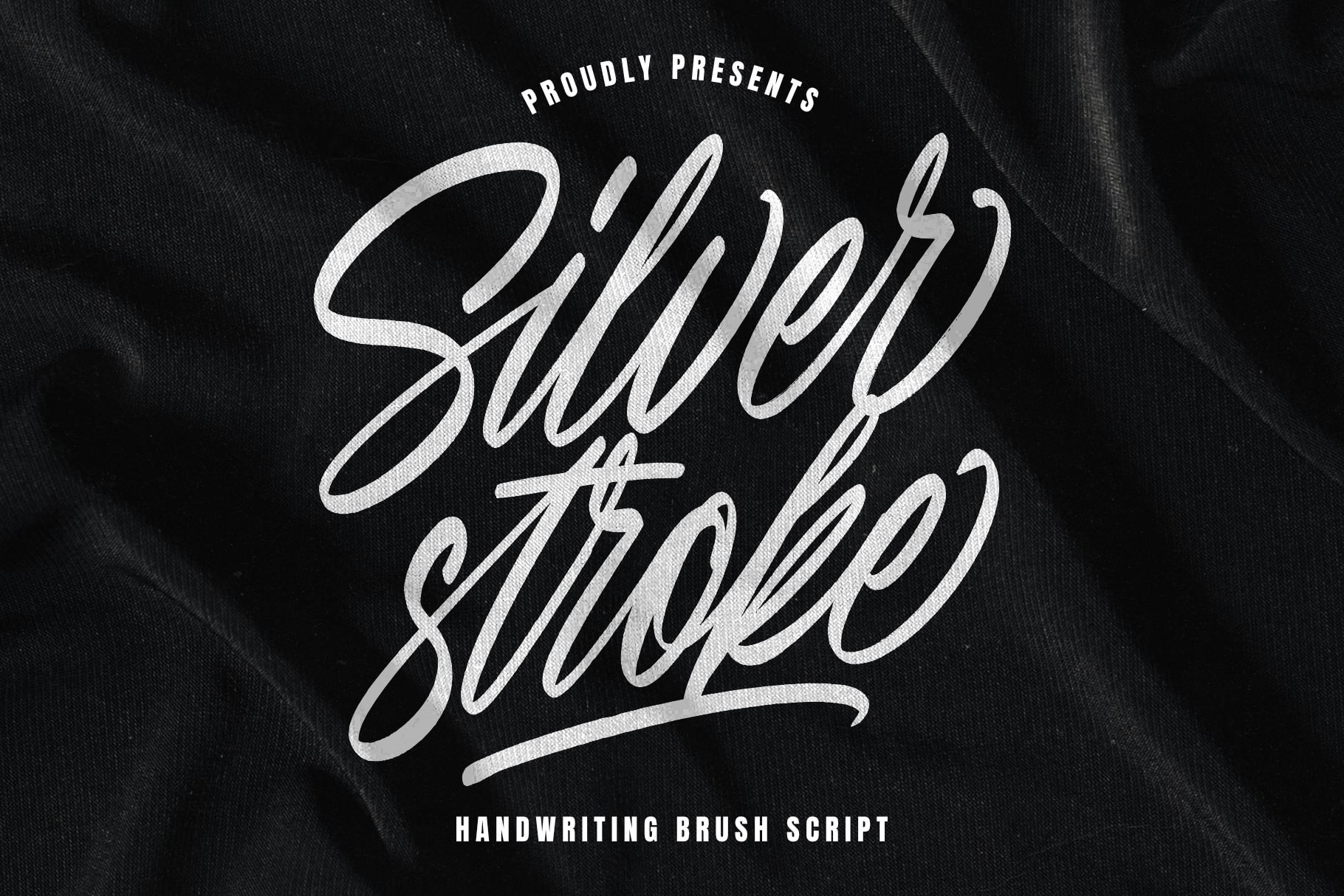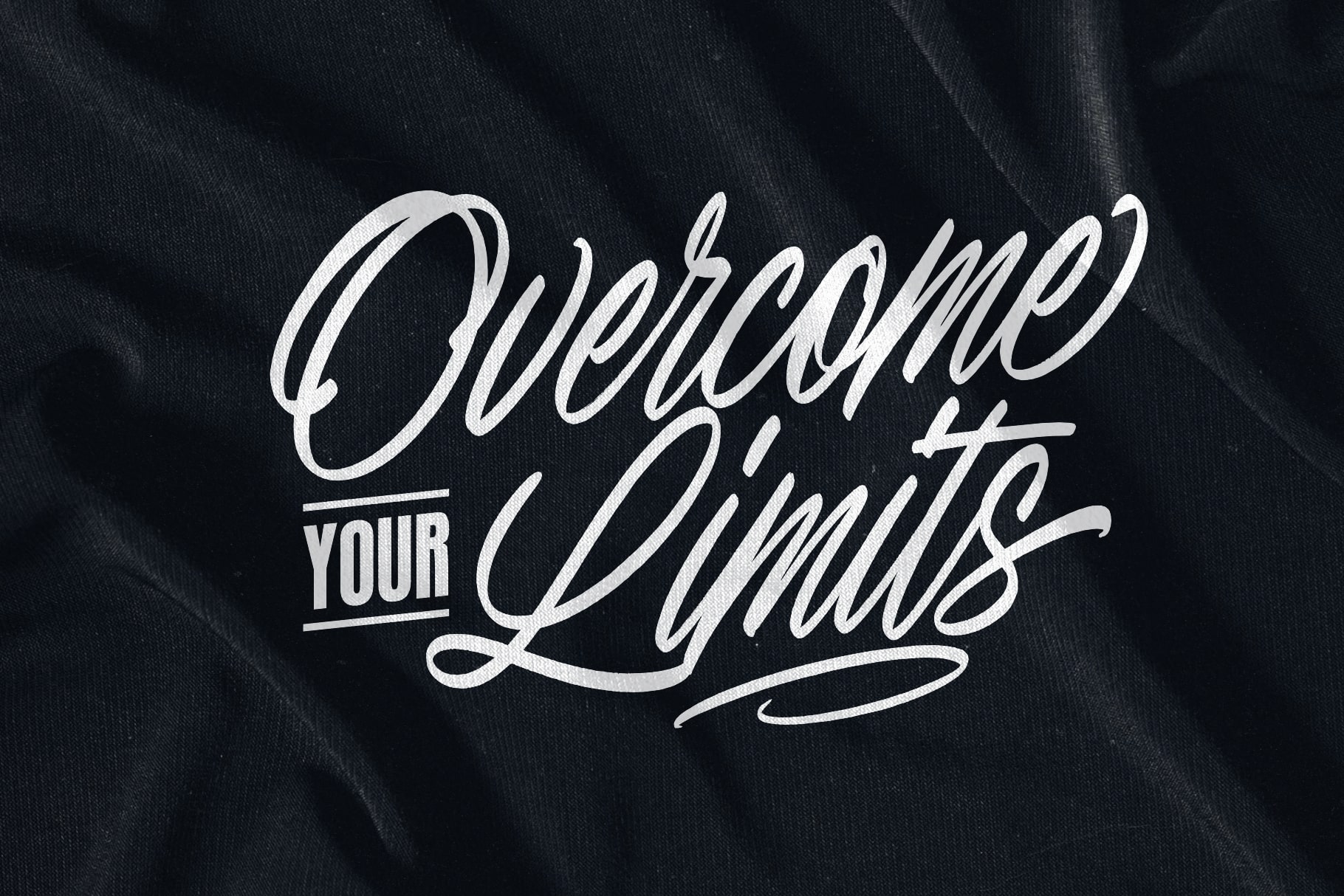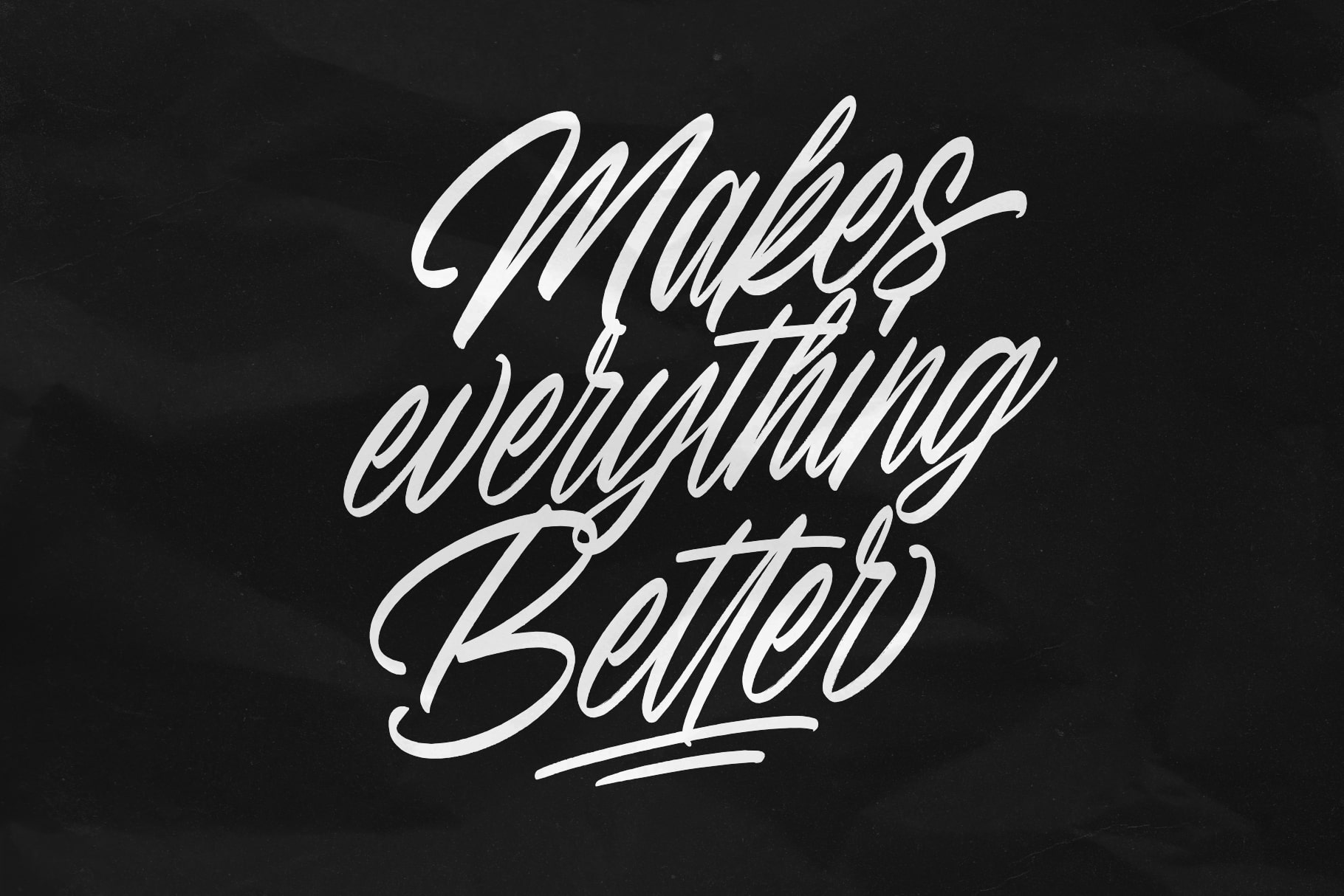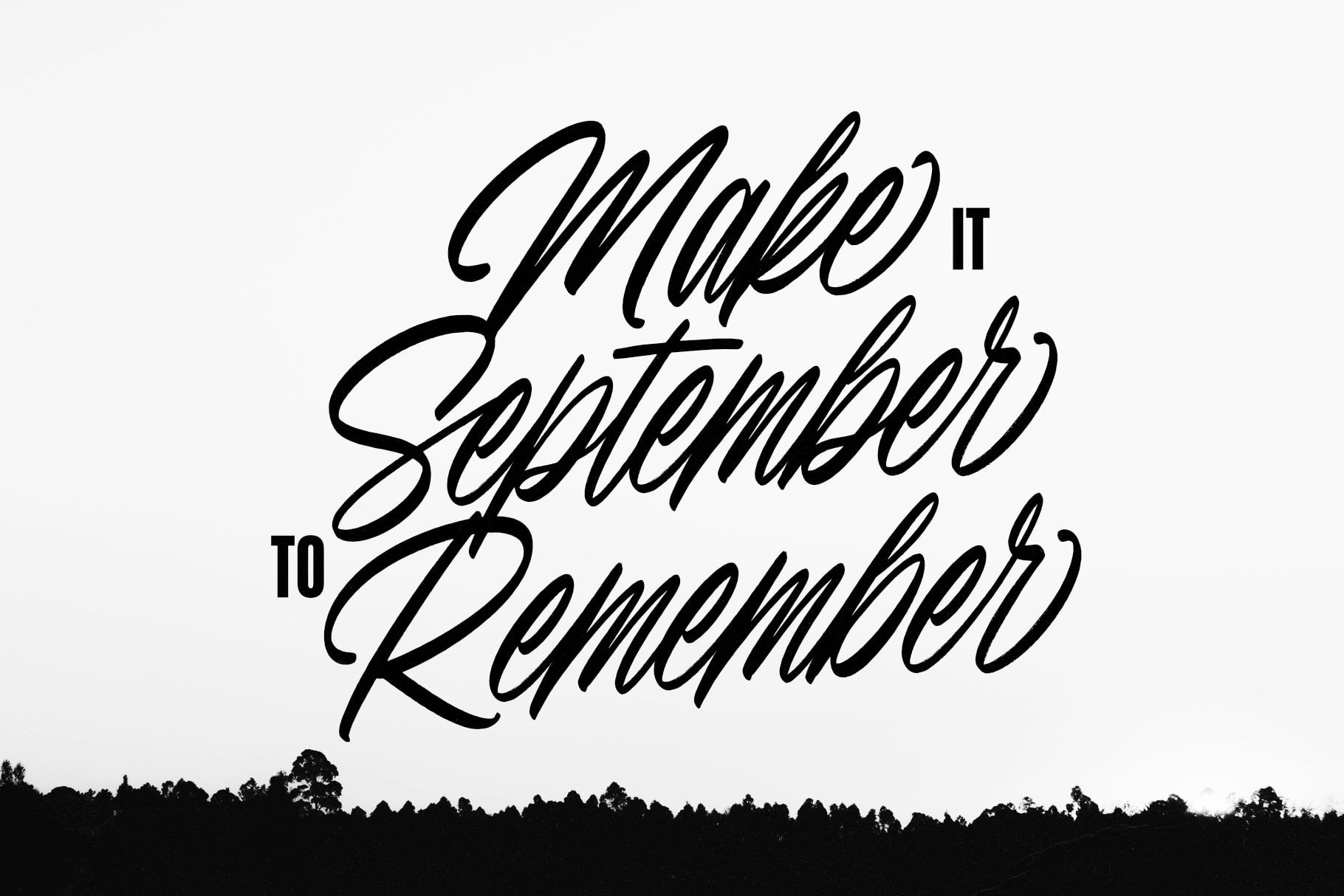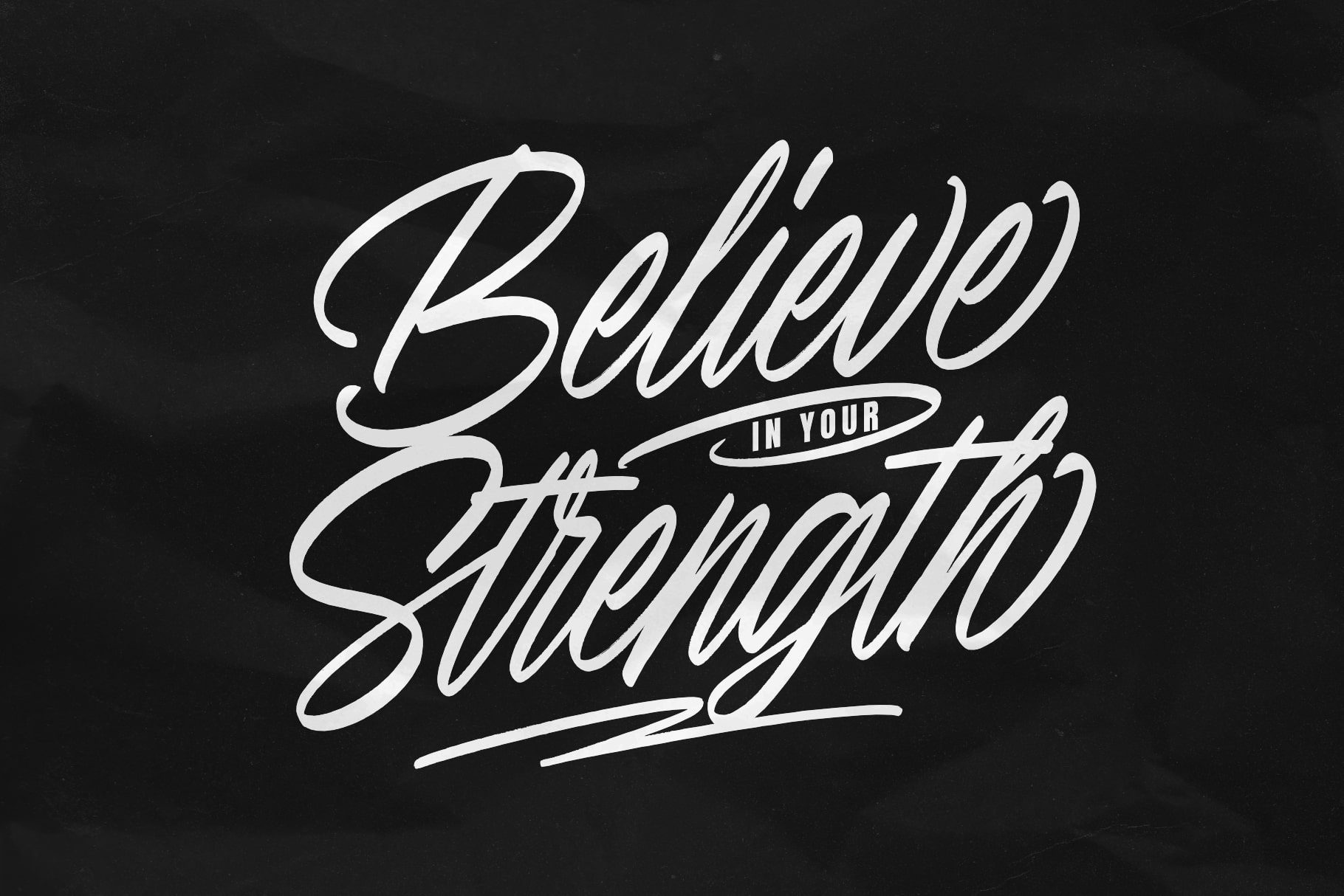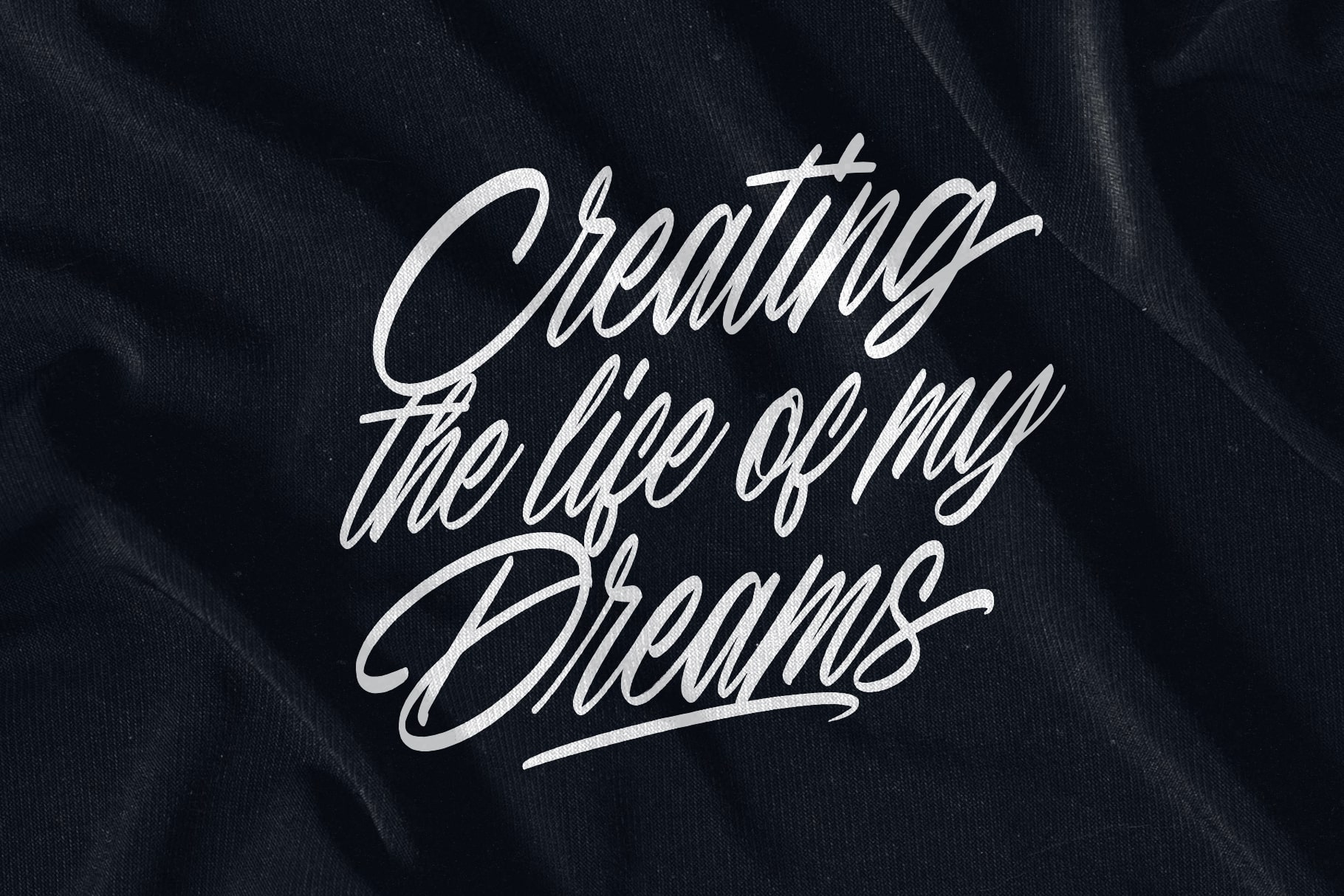
- Silver Stroke
Silver Stroke is a dynamic handwriting brush script font that brings a sense of movement and creativity to your designs. With its fluid, hand-painted strokes and expressive letterforms, this font captures the raw beauty of brush calligraphy. Perfect for projects that demand attention and originality, Silver Stroke adds a striking yet personal touch to any creative work.